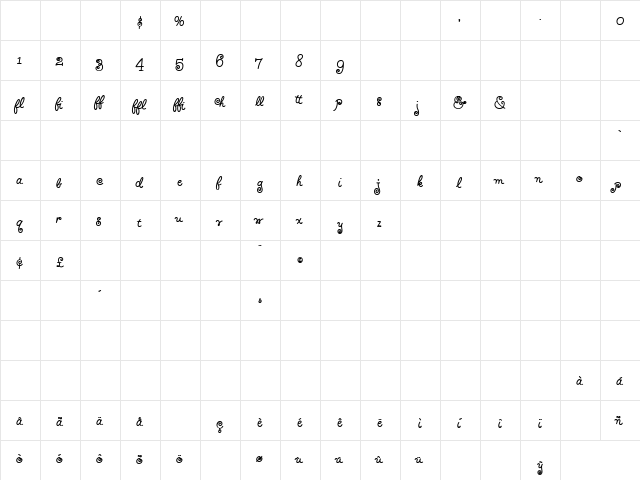
Hairspray BrunetteExtras
Design Context for Hairspray Typeface
Hairspray is a composed and adaptable typeface that performs quietly and consistently across a wide range of design contexts.